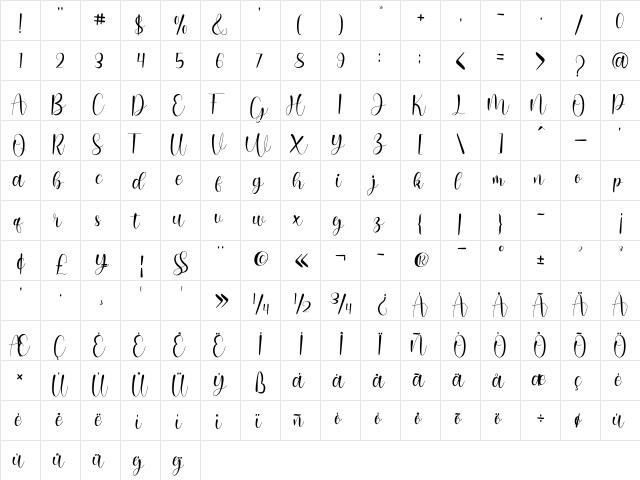
barisha script - Personal Use Regular
Design Context for barisha script - Personal Use Typeface
barisha script - Personal Use brings a calligraphic fluidity to the page — its connecting strokes and expressive curves give it an unmistakably human quality.
Font Pairing: Combine barisha script - Personal Use with a simple geometric sans for maximum contrast — the tension between flowing curves and clean structure is a classic typographic pairing.
Pro Tip: Pair barisha script - Personal Use with a clean sans-serif for supporting text. The contrast between fluid script and geometric structure creates an elegant typographic hierarchy.